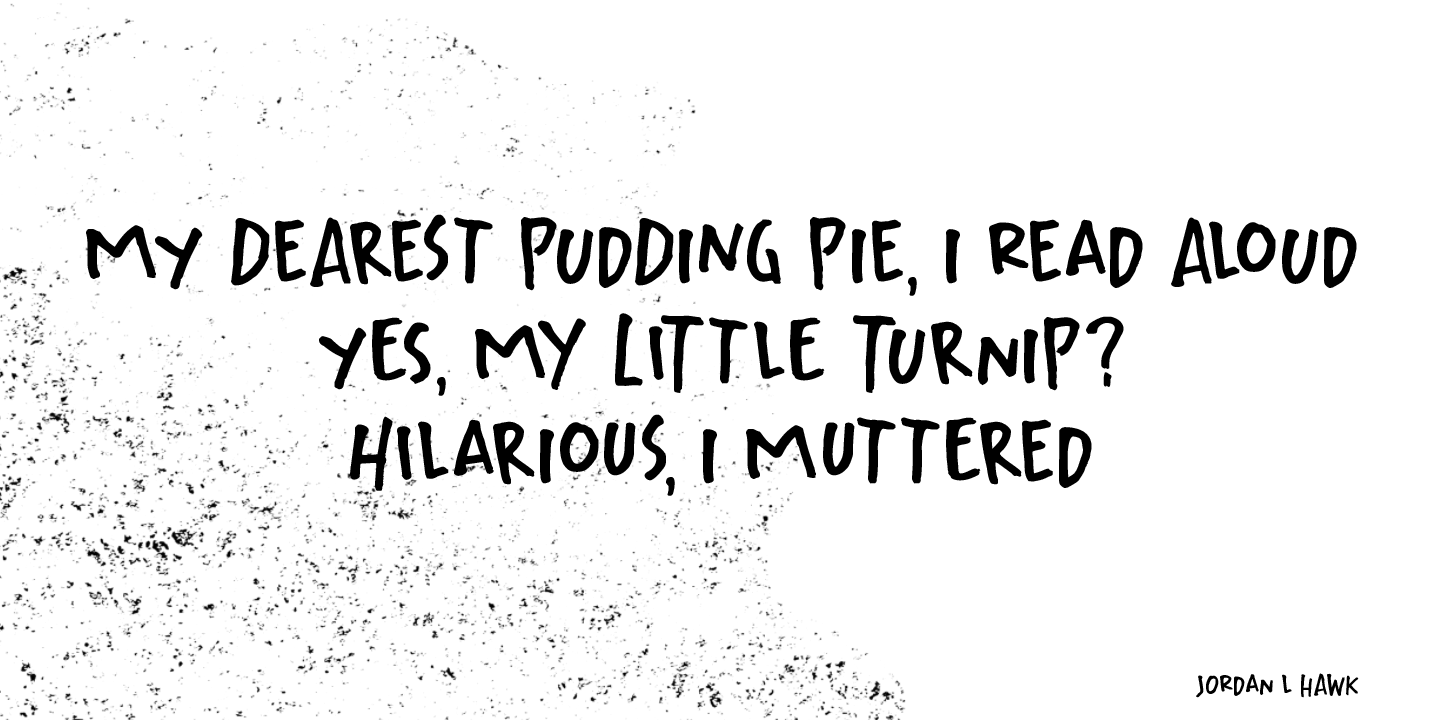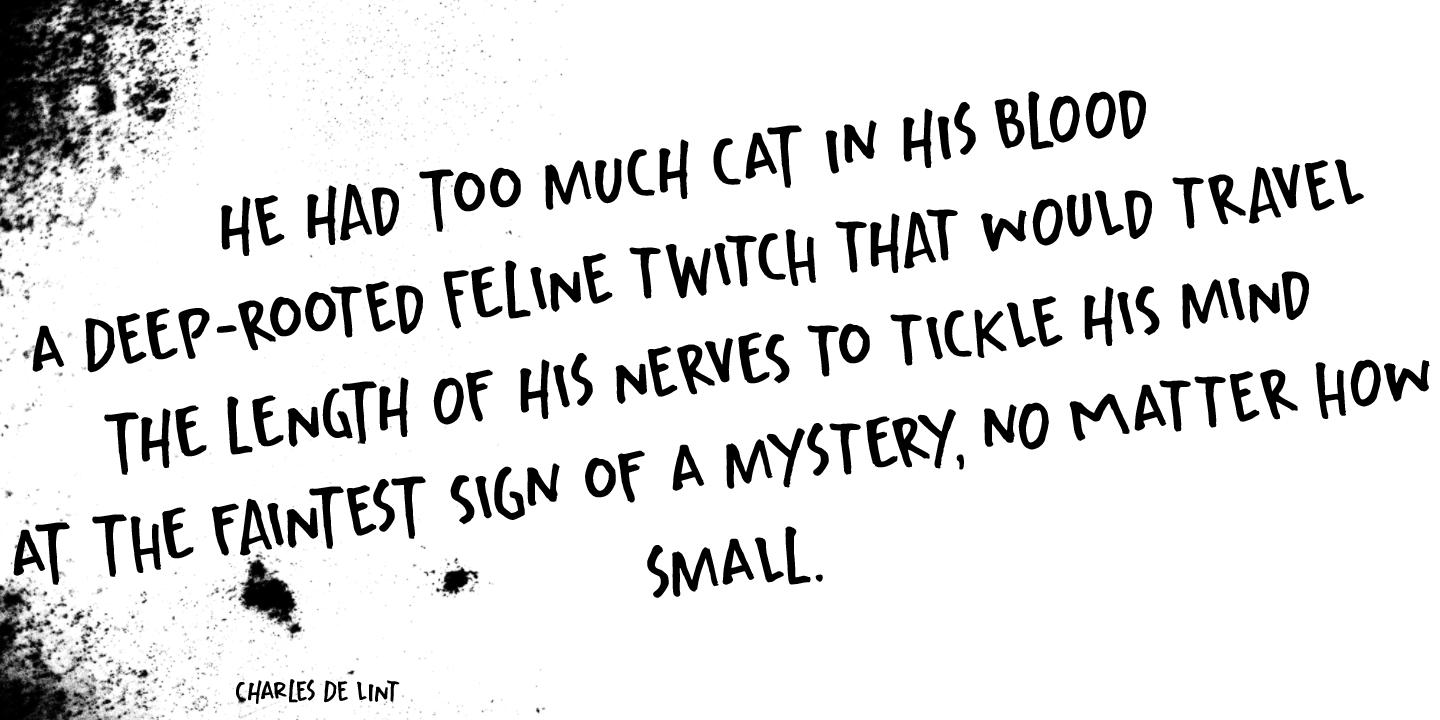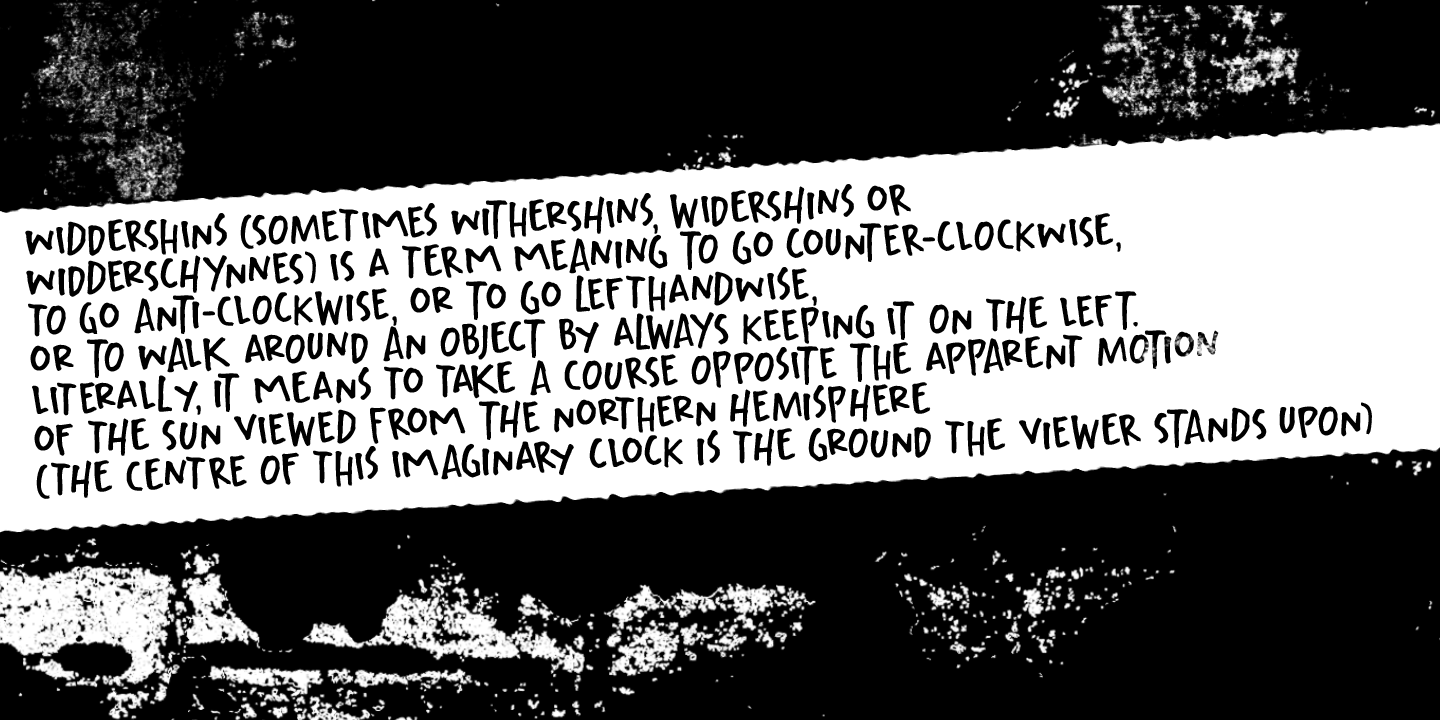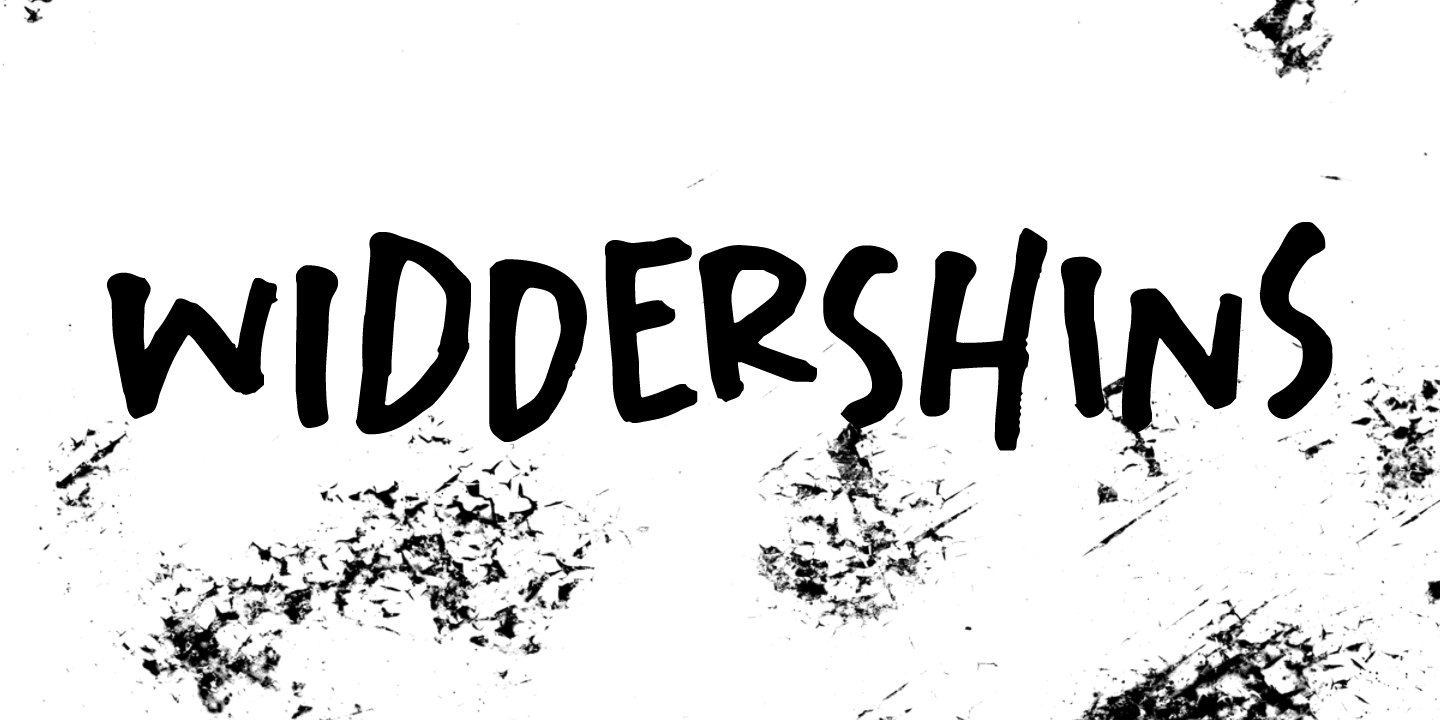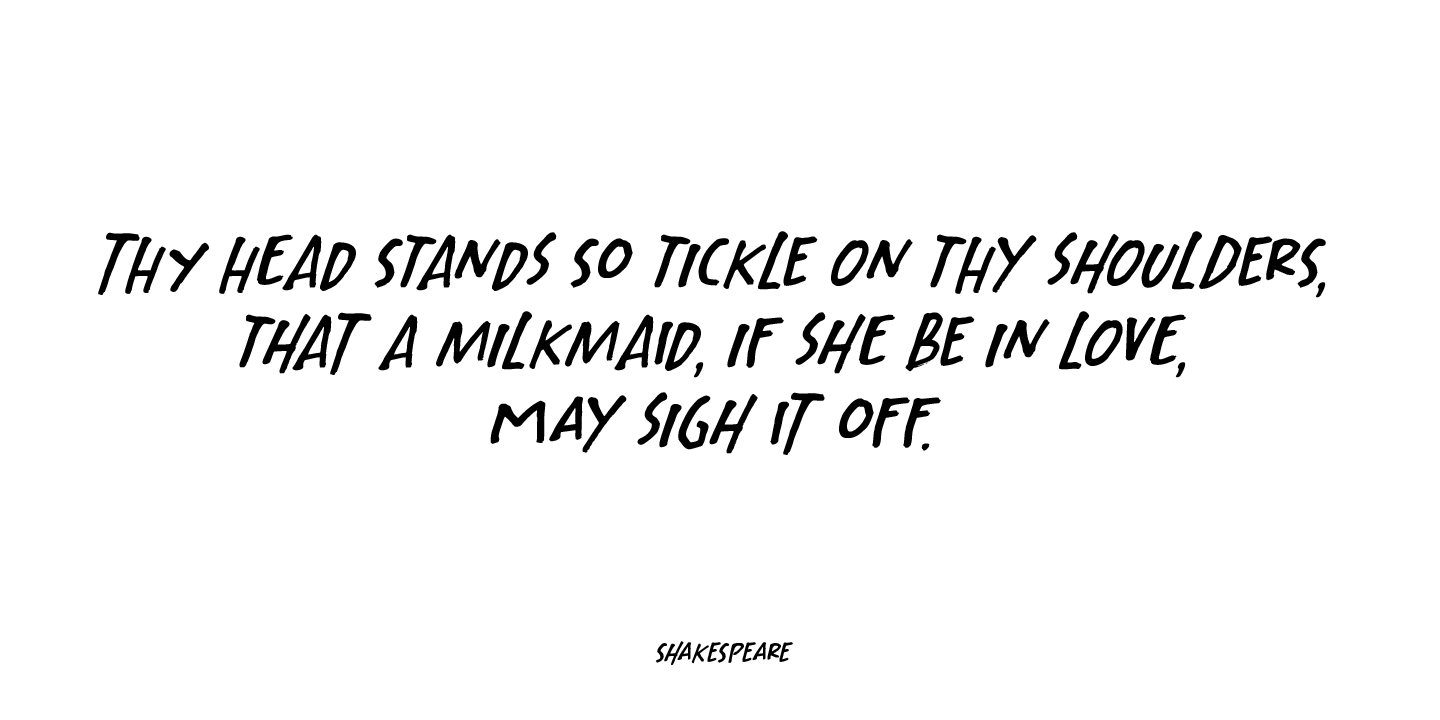
Widdershins
About Widdershins
I like strange words. Widdershins is one of them: it means \’to go counter clockwise? and I picked it up from a book I am reading at the moment. Widdershins font was created using a broken bamboo satay skewer and Chinese ink. It is a little messy, uneven…